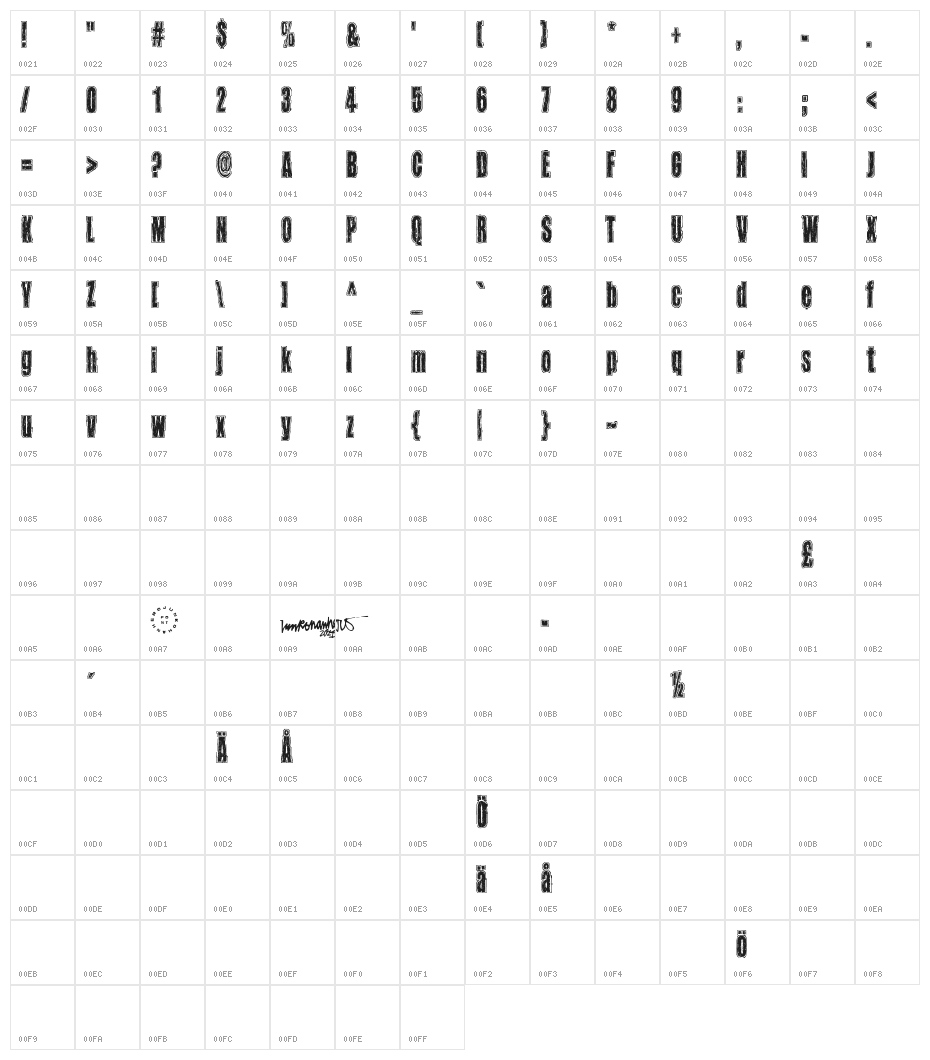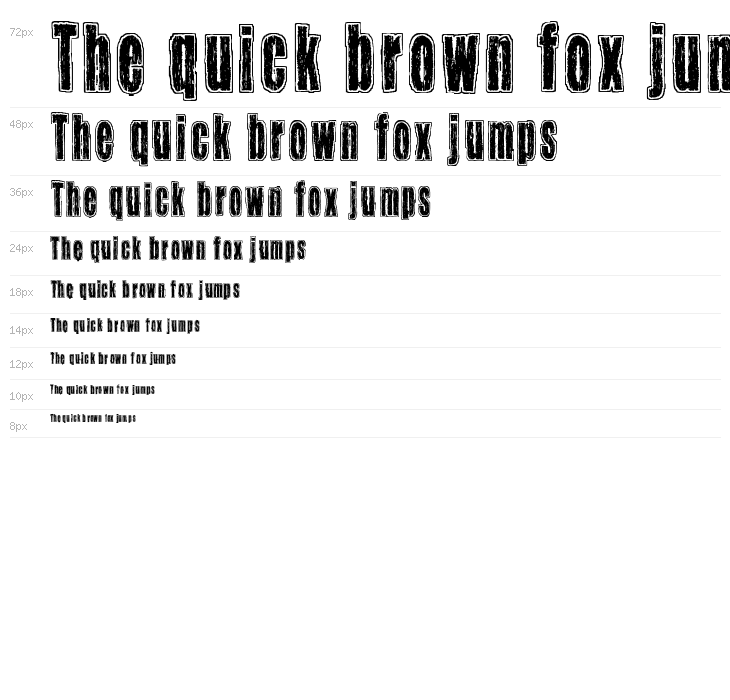
Takapiru Font
Takapiru Description
This font features a bold, distressed style with a rugged texture that gives it a vintage, worn-out appearance. The characters are blocky and robust, with a consistent thickness throughout, creating a strong visual impact. The distressed effect adds a layer of complexity and character, making it ideal for designs that require a rustic or industrial feel. The uppercase and lowercase letters maintain a uniform height, while the numbers and special characters are designed to match the overall aesthetic. This font is perfect for projects that aim to convey a sense of history or toughness.